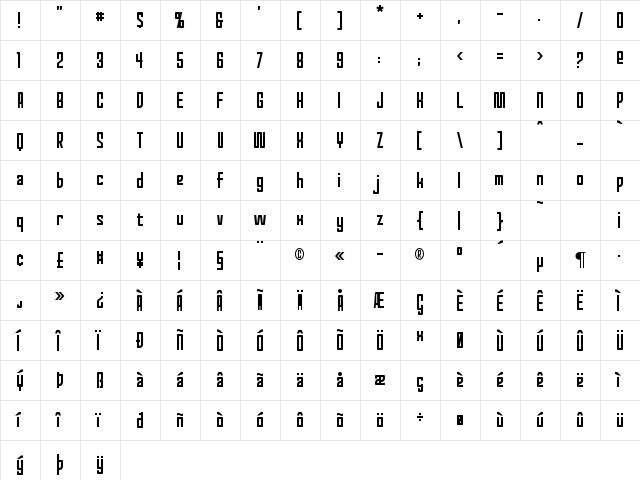
Red World Regular
| Foundry | Neale Davidson |
| Designer | Neale Davidson |
Design Context for Red World Typeface
Red World offers clean, dependable letterforms without strong stylistic allegiance, making it a practical choice for designers who need flexibility.